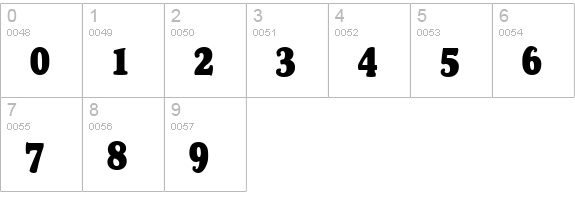
BroadsideCondensed Normal Font Details
BroadsideCondensed Normal is the standard, neutral variant in the BroadsideCondensed typeface family \xE2\x80\x94 well suited to general body text, paragraphs, and standard typographic work.
BroadsideCondensed Normal font is a sleek and modern typeface that exudes elegance and sophistication. With its condensed design, this font is perfect for creating eye-catching headlines, titles, and other display text. The clean lines and balanced proportions of BroadsideCondensed Normal make it a versatile choice for a wide range of design projects. What sets BroadsideCondensed Normal apart is that it is available for free download at FontsMarket.com. This means you can easily access this stylish font to enhance your creations without any cost. Whether you're working on branding materials, posters, or website designs, BroadsideCondensed Normal will add a touch of class to your projects. Download this font today and elevate your designs to the next level.